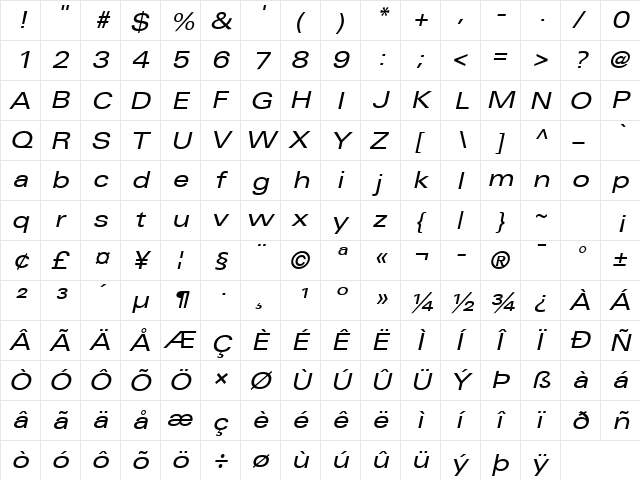
Univers ExtendedPS Italic
Design Context for Univers ExtendedPS Typeface
Univers ExtendedPS takes a measured approach to typography — its balanced proportions and neutral character make it a reliable workhorse for both digital and print work. The slanted form adds forward momentum and visual energy.
Pro Tip: Use Univers ExtendedPS for emphasis, pull quotes, and subheadings where its slanted energy can add rhythm to the layout.